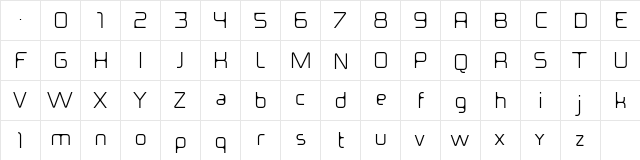
ideoma MIAGUIII Regular Font Preview
ideoma MIAGUIII Regular
ideoma MIAGUIII Regular Font Details
Design Context for ideoma MIAGUIII Typeface
ideoma MIAGUIII is a composed and adaptable typeface that performs quietly and consistently across a wide range of design contexts.
Pro Tip: Use ideoma MIAGUIII in both headline and body roles to test its range before committing to a single application.